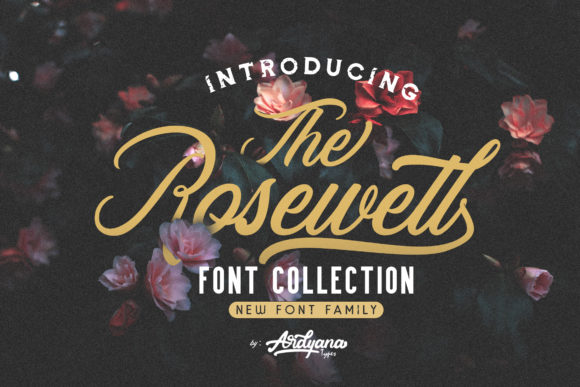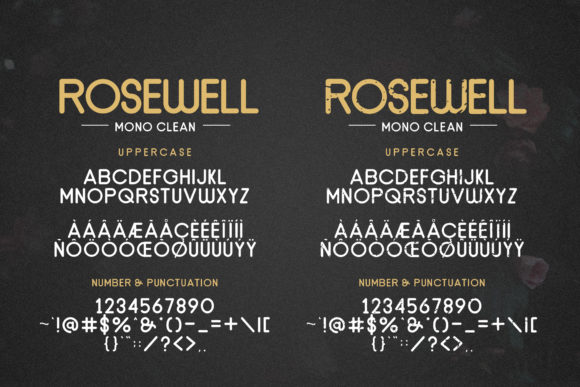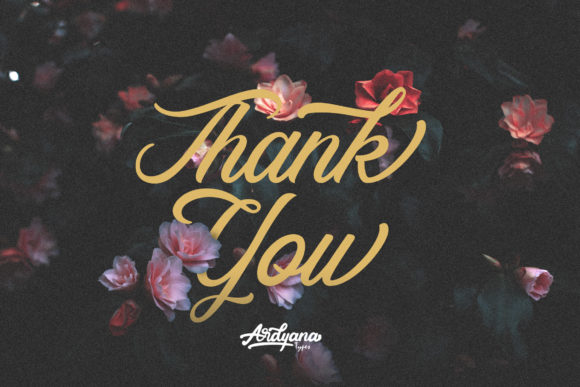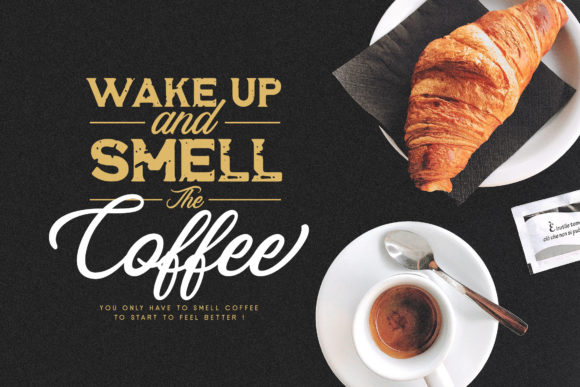
About Rosewell Family Font
The Rosewell is an amazing font family. It includes interesting sans serif and script version which can be combined to achieve an unique and elegant style. It also includes two different characters in each sans serif letter including clean and rough to give a retro impression.
It was inspired by a variety of handwriting arts that are often ornamented in cafes and lounges and includes eccentric urban mural arts so that it has its own charm when used.
It’s the best choice for logo designs, quotes, album covers, posters, business cards, and many other design projects.